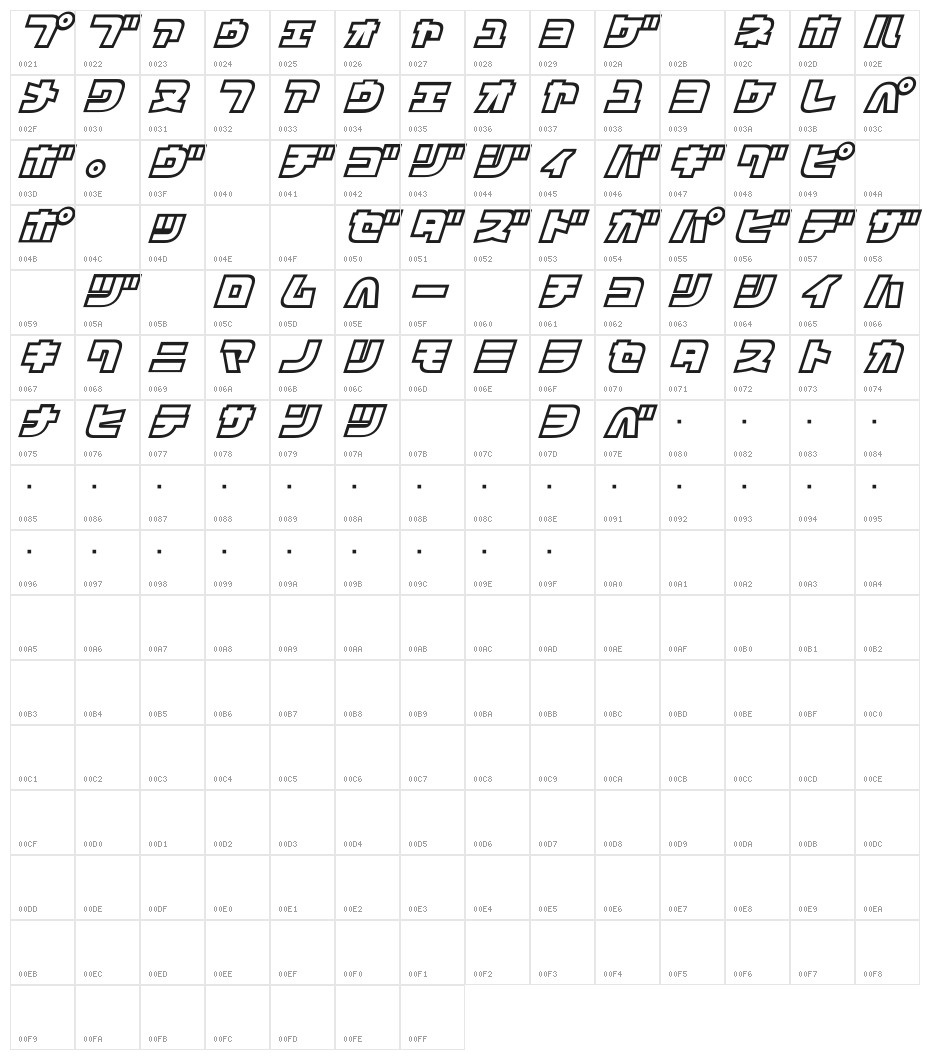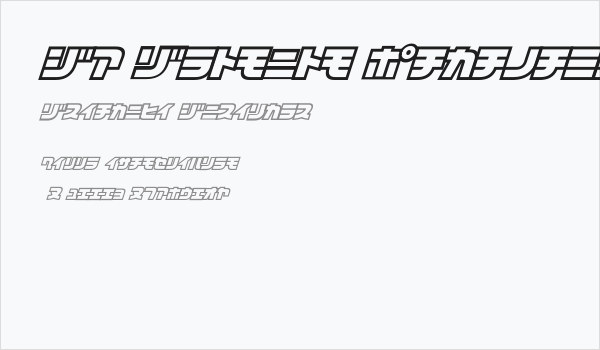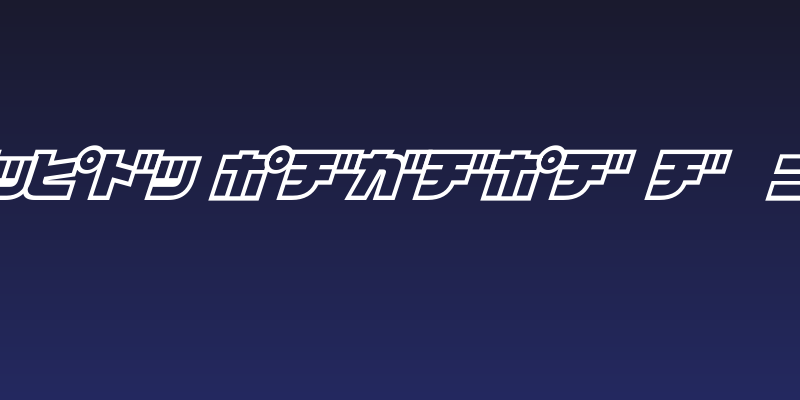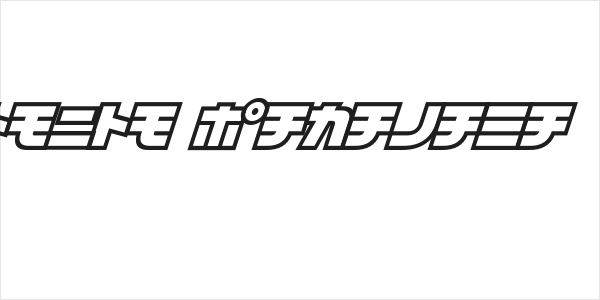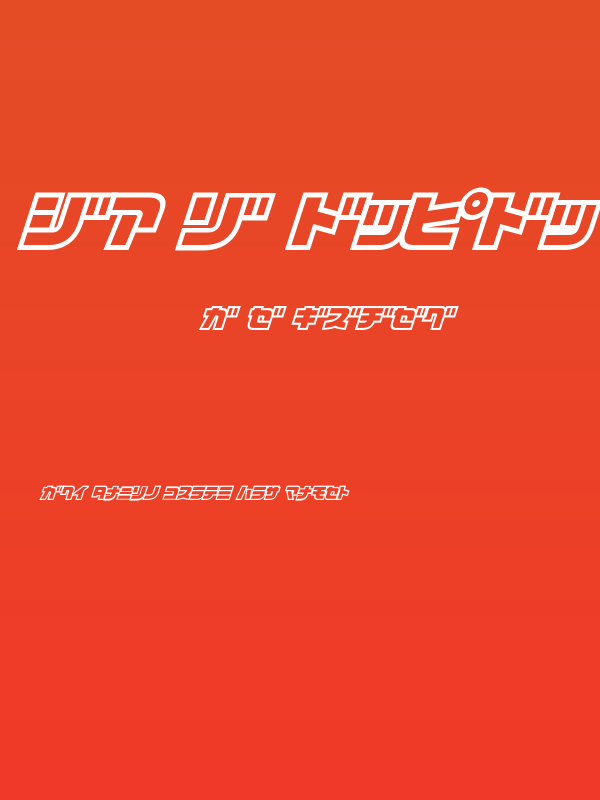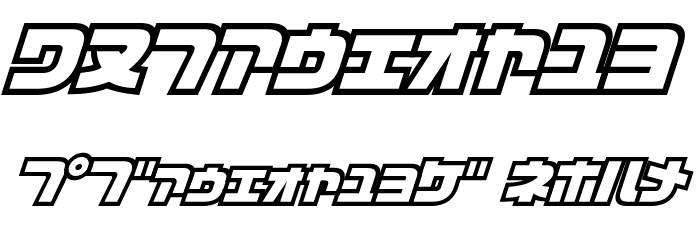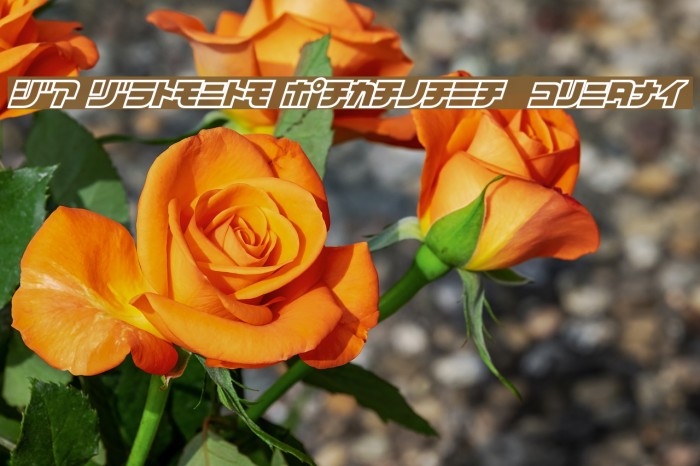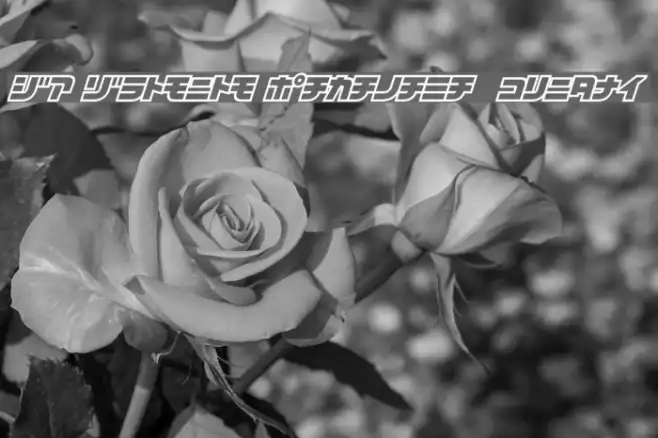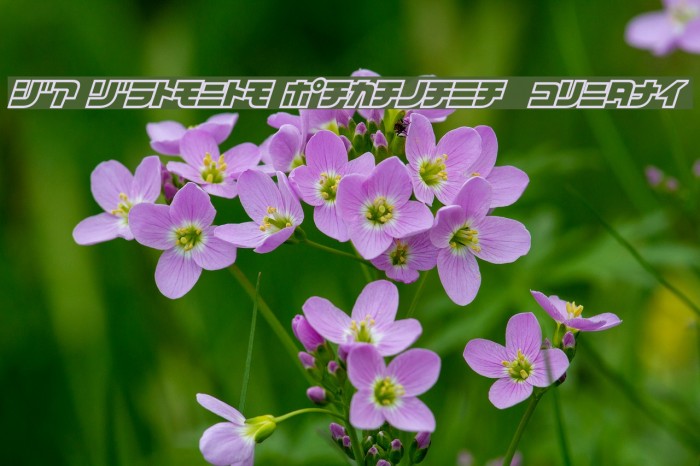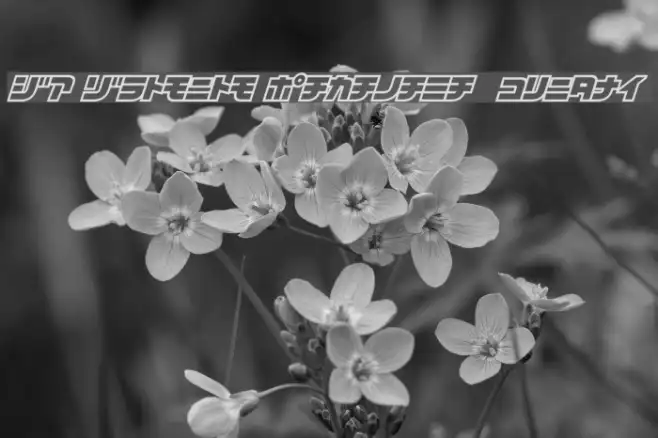
D3 Cosmism Katakana Oblique Font
D3 Cosmism Katakana Oblique Description
This font features a bold, futuristic style with a distinct oblique slant, giving it a dynamic and forward-moving appearance. The characters are outlined, creating a striking contrast between the filled and unfilled spaces. The angular design and sharp edges contribute to its modern and technological feel, making it suitable for projects that require a sense of innovation and progress. The font's unique style is particularly effective for creating eye-catching headlines or logos that need to stand out. Its geometric shapes and clean lines ensure readability while maintaining a strong visual impact.
| Proposed Projects | Ideal for technology branding, sci-fi themed designs, video game titles, and modern advertising. |